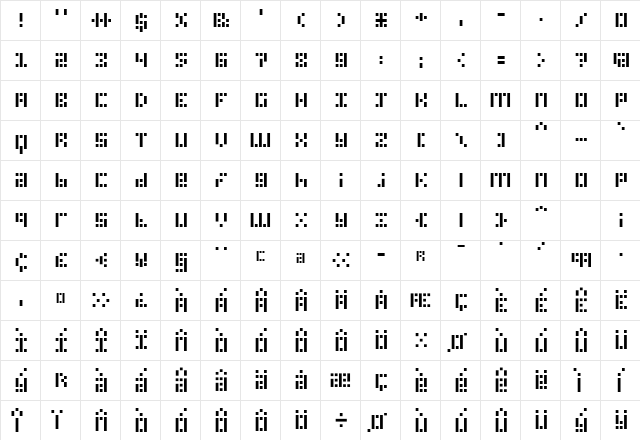
PhlexSquare Regular
Design Context for PhlexSquare Typeface
PhlexSquare takes a measured approach to typography — its balanced proportions and neutral character make it a reliable workhorse for both digital and print work.